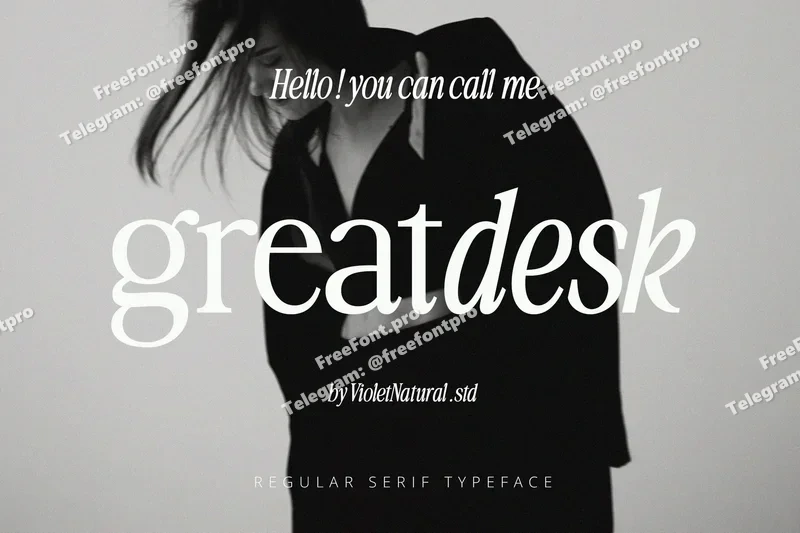
Greatdesk Serif
helo this is my font with the name greatdesk which has a classic, clean and elegant style and italic style in the letters. This font is suitable for application in your Project.